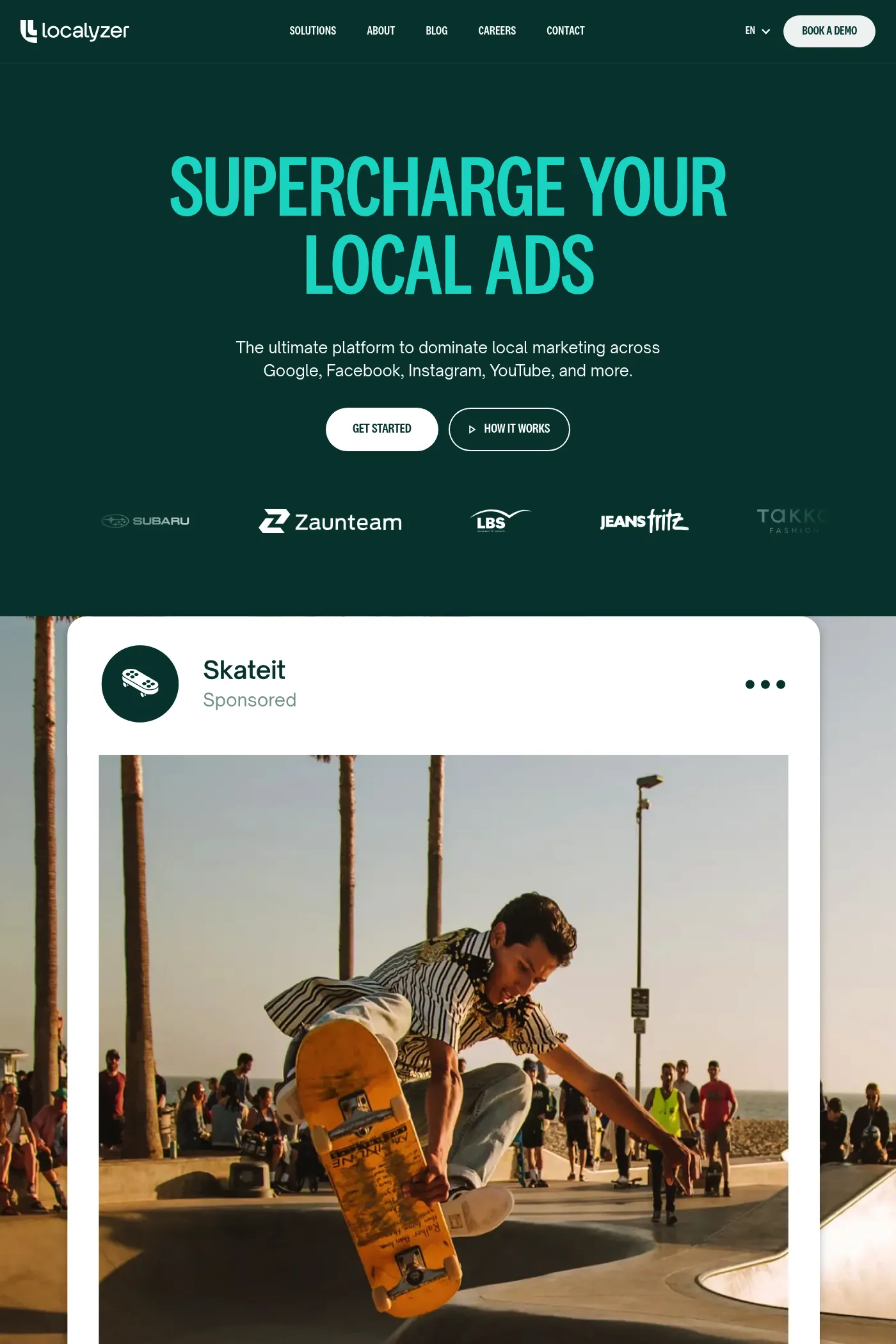
National 2 is a sans-serif typeface from Klim Type Foundry.
National 2 is a deceptively simple sans with a distinctive personality. Test the free fonts, see them in use and buy for desktop, web & app.